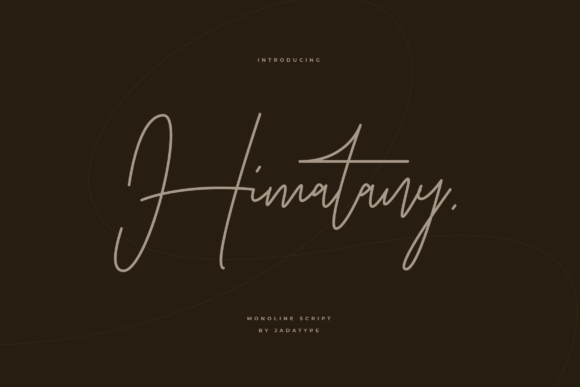
Introducing Himatany Font, the perfect script font designed to elevate your creative projects to new heights! Whether you're crafting a stunning wedding sign, creating a captivating brand identity, or simply looking to add a touch of elegance to your social media posts, Himatany has got you covered.
Created by the talented team at jadatype, this font family boasts a unique monoline style that exudes sophistication and charm. With its smooth and flowing letterforms, Himatany adds a touch of grace to any design, making it the ideal choice for those seeking a font that truly stands out.
One of the most compelling reasons to download Himatany Font is its versatility. This font is not limited to a specific niche or industry, making it an excellent choice for a wide range of projects. Whether you're a graphic designer, a small business owner, or an aspiring influencer, Himatany has something to offer everyone.
With Himatany Font, you can effortlessly create beautiful wedding signs that will leave a lasting impression on your guests. Its elegant and romantic style adds a touch of magic to any wedding decor, making it the perfect choice for couples who want to add a personalized and luxurious touch to their special day.
But Himatany doesn't stop at weddings! This font is a powerful tool for branding and creating a strong visual identity. Its graceful curves and stylish letterforms instantly capture attention and leave a lasting impression. Whether you're designing a logo, packaging, or promotional materials, Himatany will help your brand stand out from the crowd.
Social media enthusiasts will also appreciate the captivating nature of Himatany Font. Its eye-catching and unique style will make your posts and captions unforgettable, helping you build a strong online presence and engage your audience in a meaningful way.
In summary, Himatany Font is not just a script font; it's a versatile and captivating tool that will elevate your creative projects to new heights. With its monoline style, it's perfect for crafting, branding, social media, and so much more. So why wait? Download Himatany Font today and unlock a world of endless possibilities for your designs!